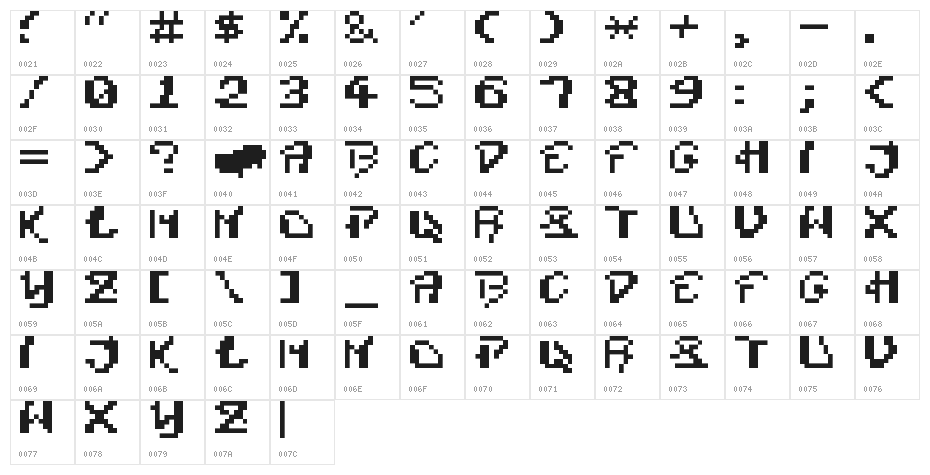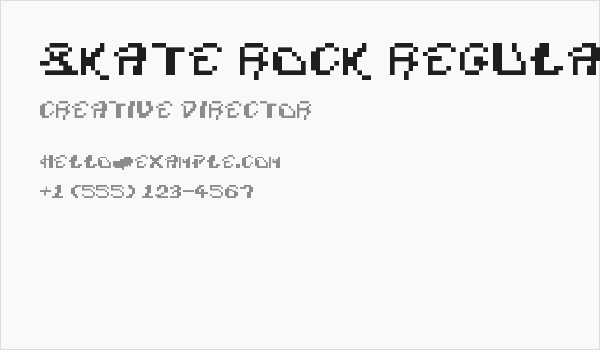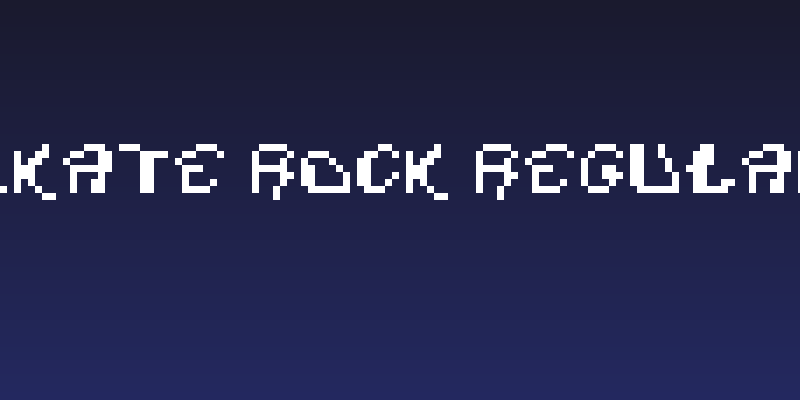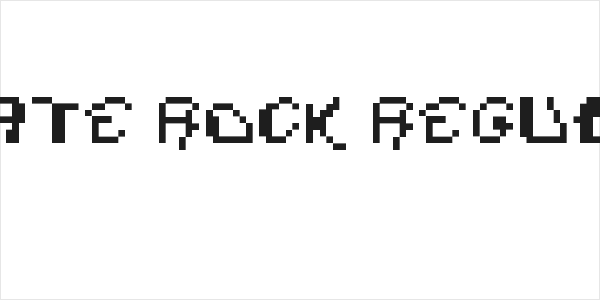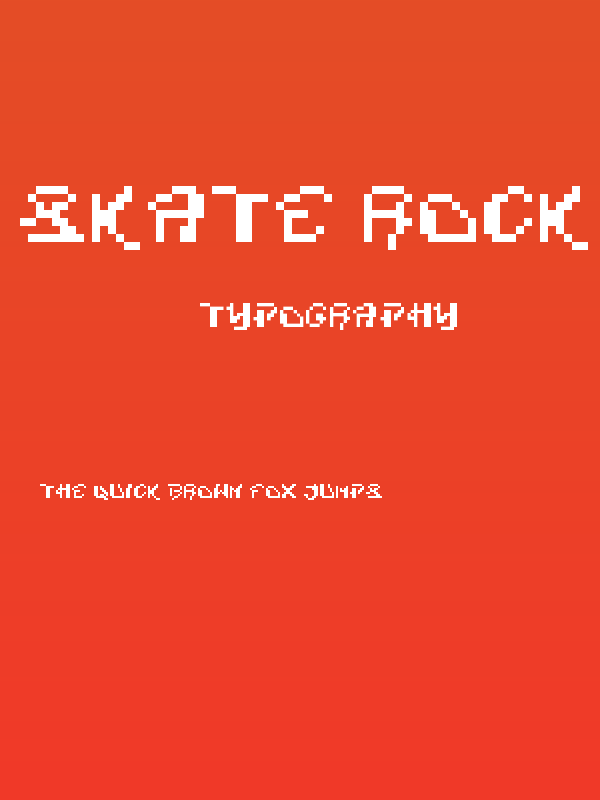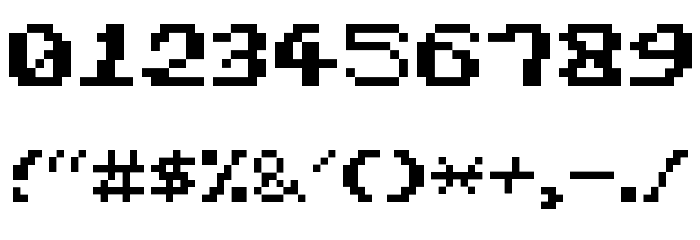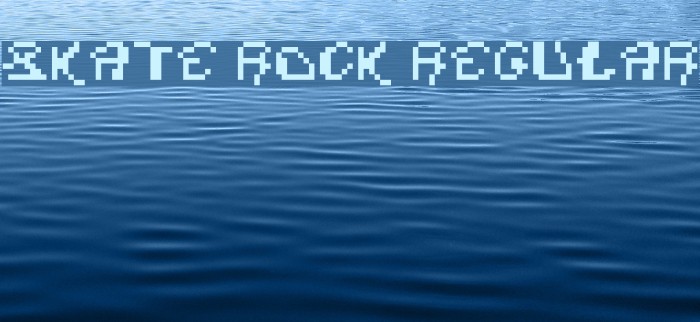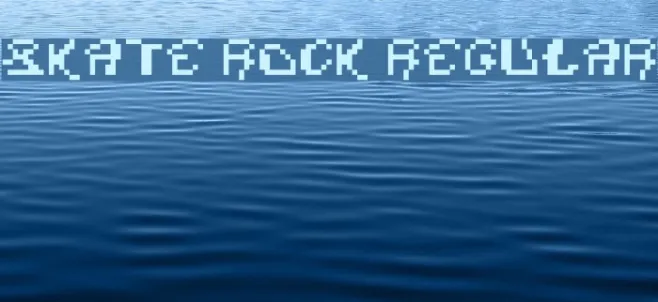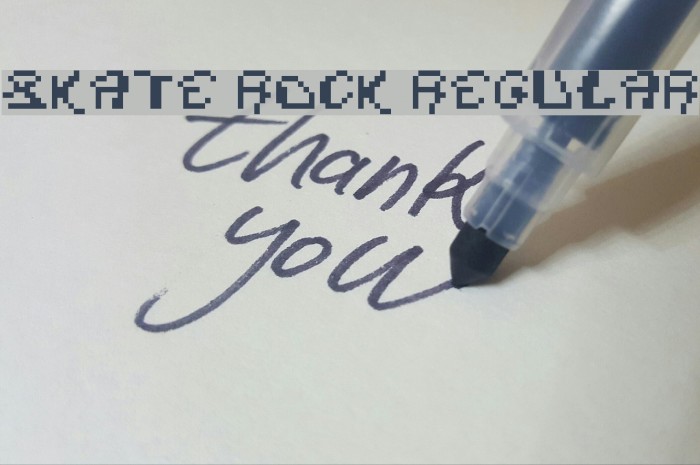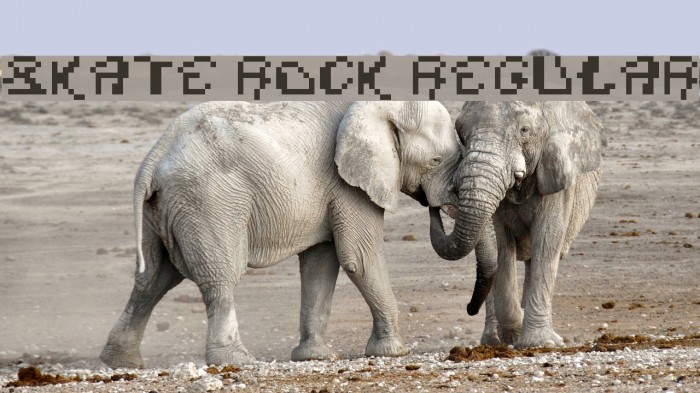
Skate Rock Regular Font
Skate Rock Regular Description
This font features a bold, edgy design with a pixelated, retro aesthetic reminiscent of early digital graphics. The characters are constructed with sharp angles and a blocky appearance, giving it a rugged and rebellious feel. The uppercase and lowercase letters maintain a consistent style, with each character exhibiting a unique, jagged form that enhances its distinctiveness. The numbers and special characters follow the same design principles, ensuring uniformity across the font. This style is ideal for projects that aim to capture a sense of nostalgia or convey a gritty, urban vibe.
| Overall Style | Retro, Edgy |
| Proposed Projects | Ideal for video game graphics, retro-themed posters, skateboarding brands, or music album covers. |